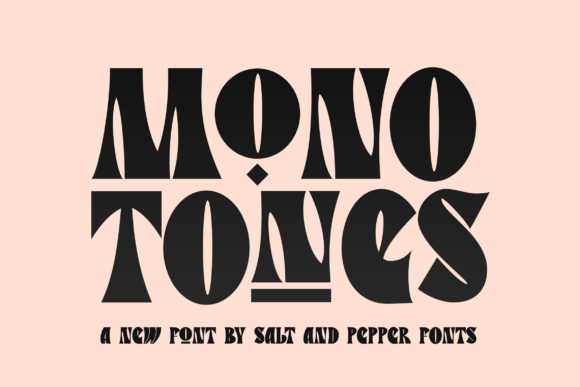
Step into a world of creative expression with Monotones Font, a captivating display font that will leave you spellbound. Its whimsical charm and playful spirit are sure to ignite your imagination, transforming ordinary designs into extraordinary masterpieces.
With its carefully crafted curves and delightful details, Monotones Font is a visual delight that will elevate your Cricut DIY signs to new heights. Effortlessly add a touch of whimsy and fun to your home décor, personalized gifts, or any project that calls for a unique and eye-catching font.
Dive into the depths of Monotones' versatile character set, where you'll discover a treasure trove of glyphs and swashes that will unleash your creativity. Mix and match elements to create captivating designs that reflect your personal style and leave a lasting impression on all who see them.
So, embrace the magic of Monotones Font and let your imagination soar. Explore the endless possibilities of this enchanting display font, and let your creativity shine brighter than ever before. Get ready to turn your design dreams into reality, one captivating letter at a time.